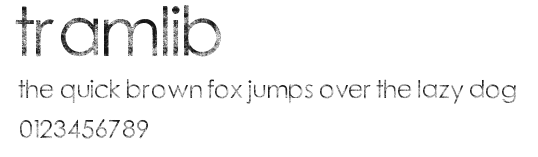
tramlib Preview
About tramlib.ttf
tramlib.ttf is a modern, elegant sans-serif font designed for ultimate readability and visual harmony. Perfect for branding, headlines, web design, and print materials.